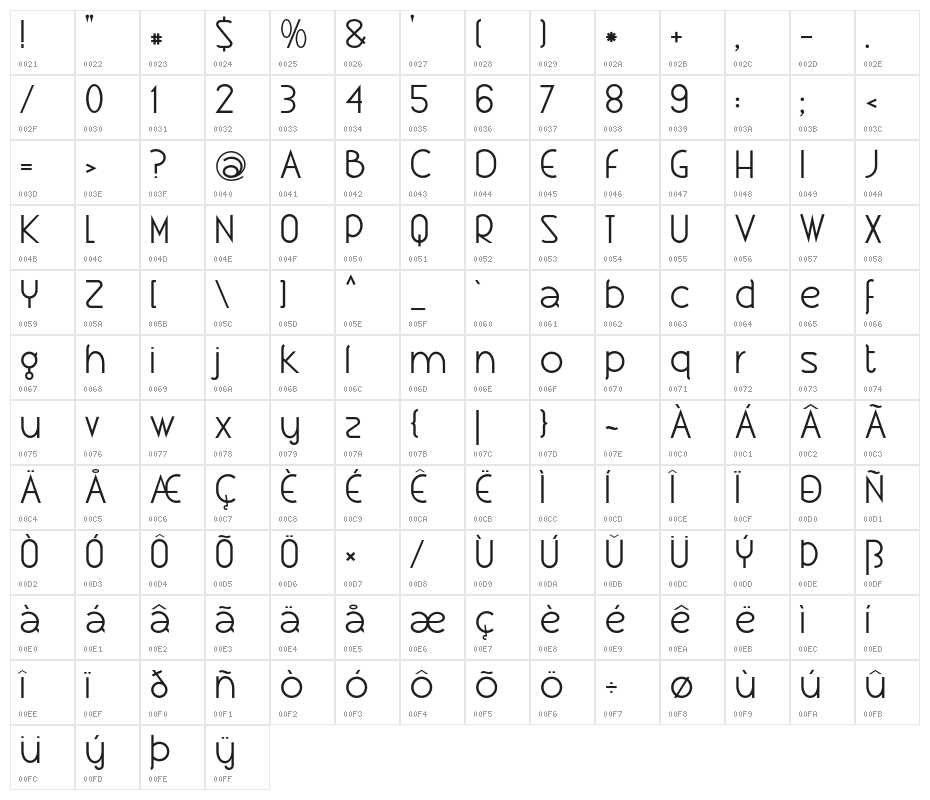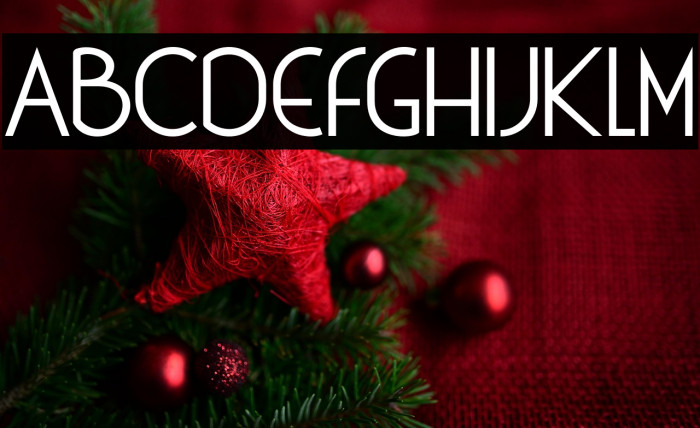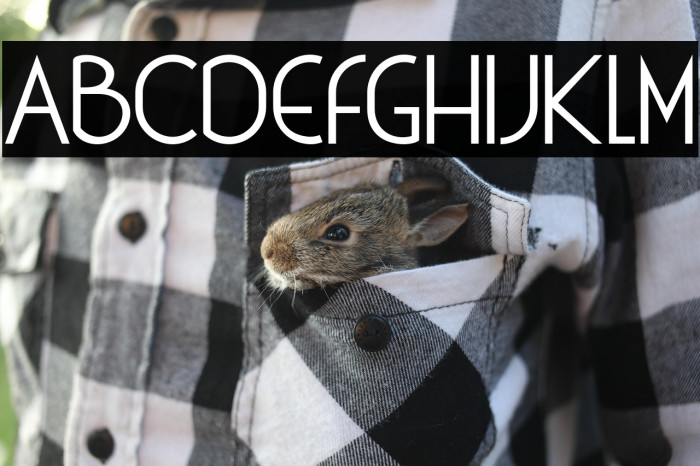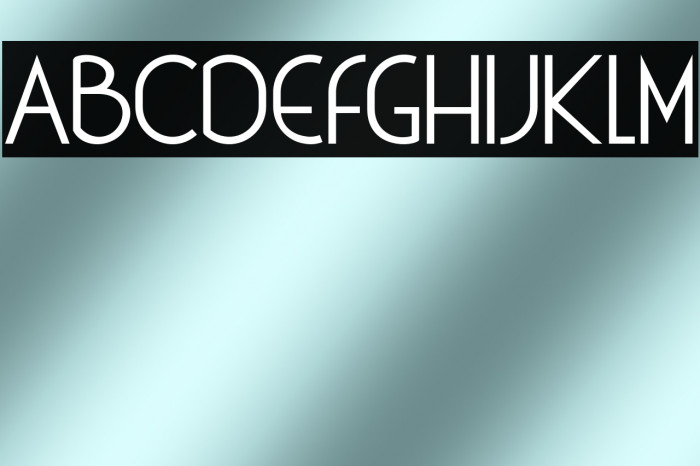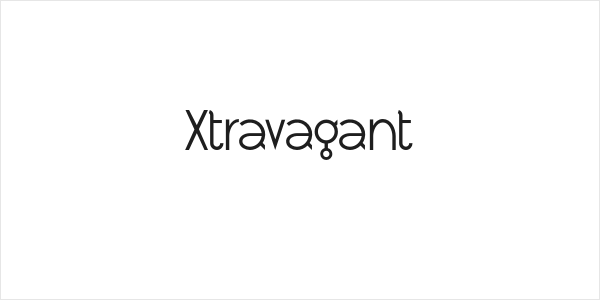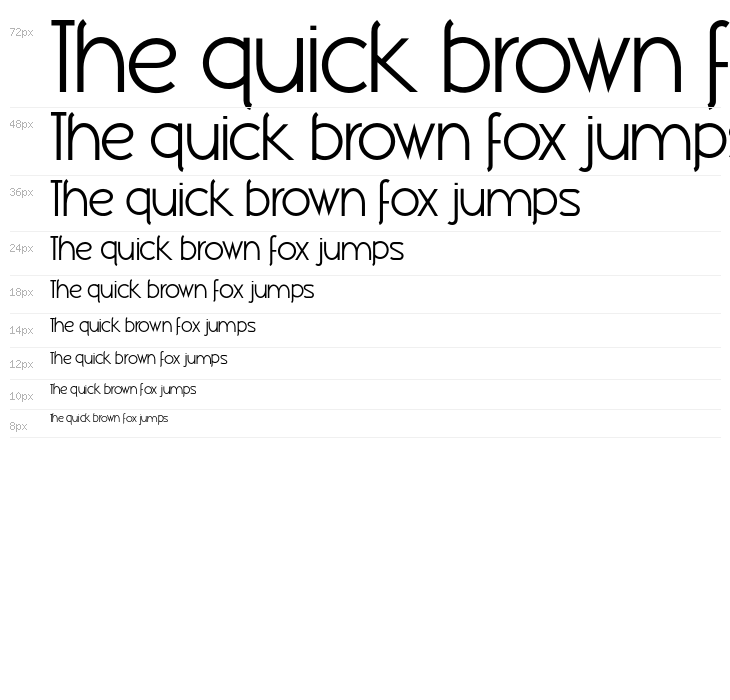
Xtravagant Font
Xtravagant Description
This font features a modern and geometric design, characterized by clean lines and a sleek appearance. The uppercase letters are bold and structured, with a consistent height and width that gives them a uniform look. The lowercase letters maintain a similar geometric style, with rounded edges that soften the overall appearance. The numerals are clear and legible, matching the style of the alphabet with their consistent stroke width. Special characters are well-integrated, maintaining the font's modern aesthetic. This font's design is both functional and stylish, making it suitable for a variety of applications.
| Use Case | Headlines, Logos, Digital Media |
| Proposed Projects | Ideal for branding, advertising, and digital media projects that require a contemporary and professional look. |